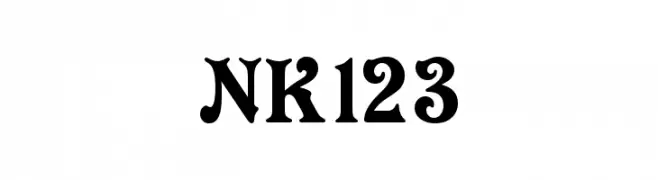
A bold, italicized font with angular, forward-leaning characters.
A clean, modern font with thin, uniform strokes and a minimalist design.
A modern, minimalist font with geometric shapes and uniform stroke width.
A modern, playful font with geometric and organic elements.
A bold, modern font with geometric and playful elements.
A bold, football-themed font with integrated sports elements.
A bold, decorative font with vintage flair and ornate serifs.
A music notation font for creating sheet music and musical scores.
Bold, legible music notation font for scores and teaching.
A bold, geometric font with tribal and artistic elements.